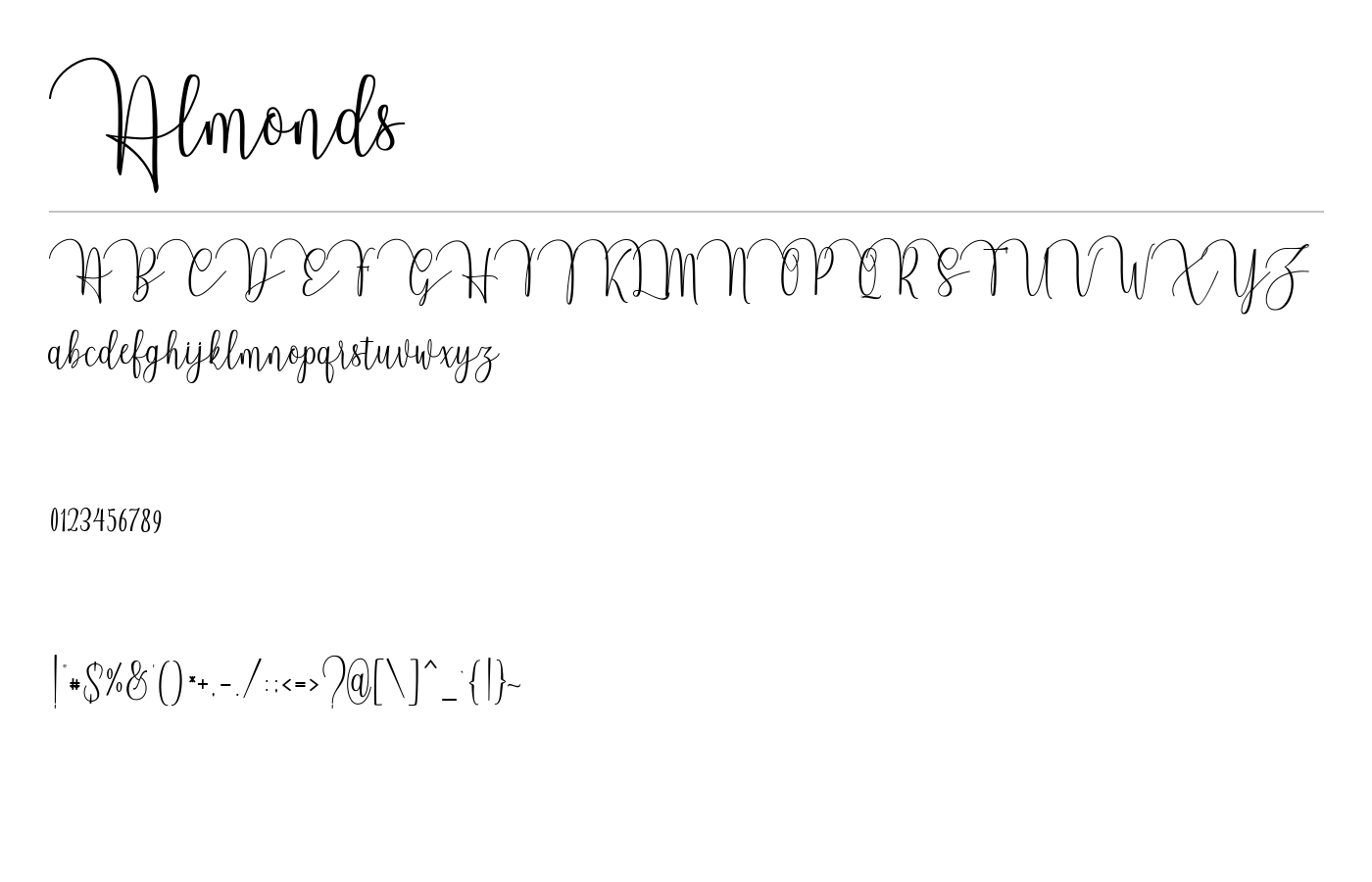
Almonds Font is a delicate, handwritten script with a playful and elegant touch, featuring tall, narrow letterforms and fine, flowing strokes. Its light weight and decorative loops make it ideal for stylish branding, invitations, and creative headlines where a personal, graceful feel is desired. This font brings a charming and whimsical personality that works well in fashion, lifestyle, and boutique design contexts.
Almonds Font
About Almonds Font
| Font family | Almonds Font |